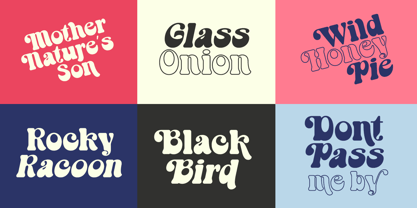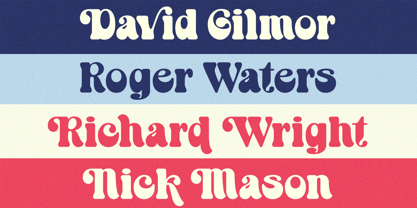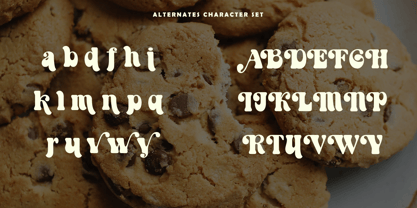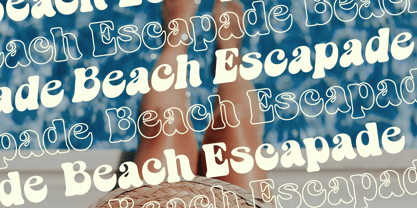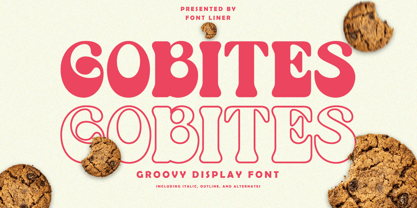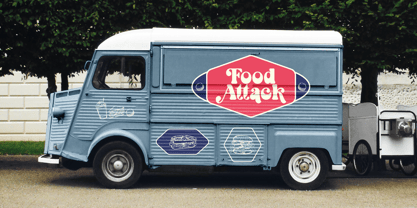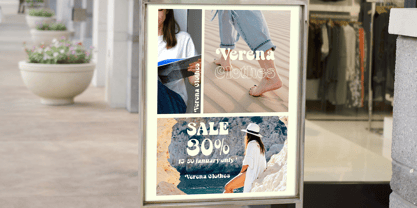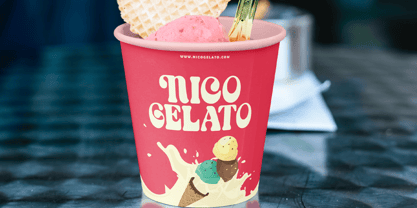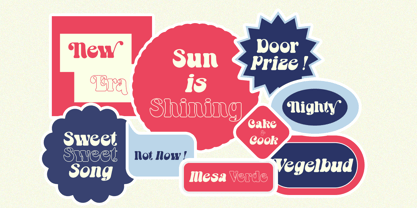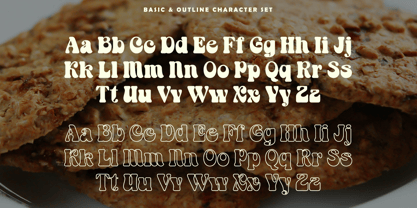
Gobites
by Font Liner
The Gobites Font Family was designed by Ghina Luthfiarieska and published by Font Liner. Gobites contains 3 styles and family package options. More about this family
Gobites is groovy retro display font. You will also get additional alternative character fonts that make your design projects amazing. Use this display font to add that special groovy touch to any design idea you can think of!. Gobites Very suitable for logotype, Stickers, Packaging design, Cricut Project, headlines, brand identity, t shirt or apparel industry, posters, magazines, books, YouTube, Instagram, websites, or any of your creative design projects.
- Gobites
- Gobites Outline
- Gobites Italic
- Stylistic Alternates